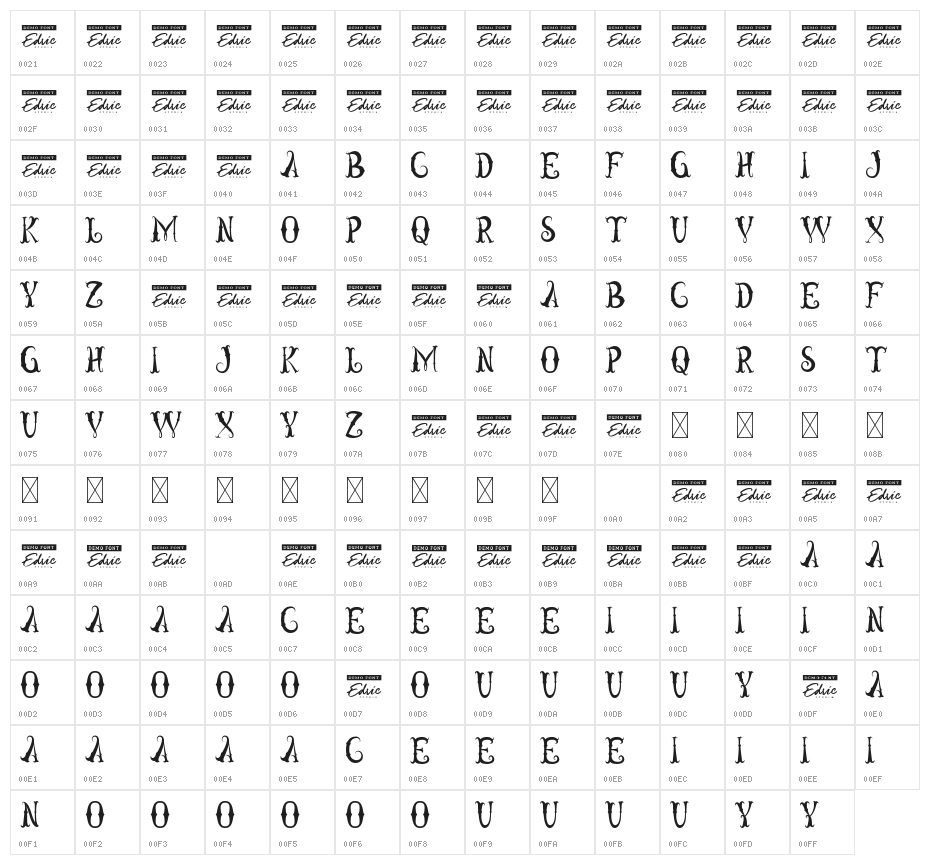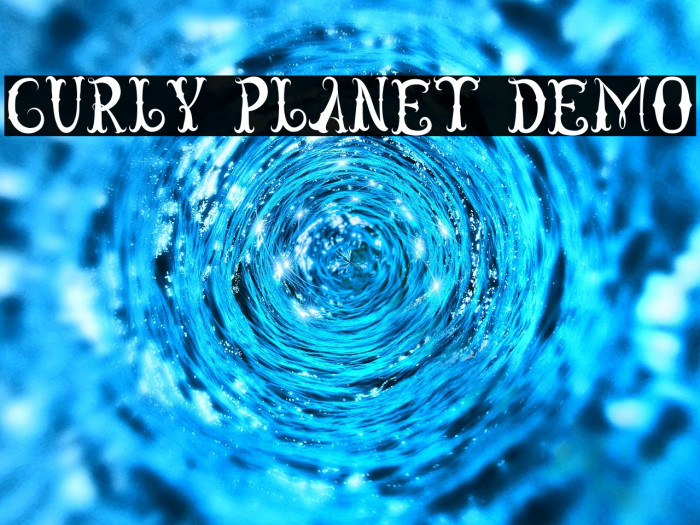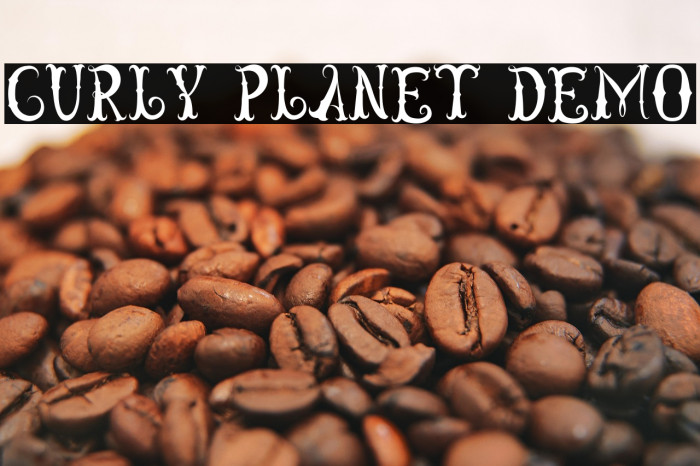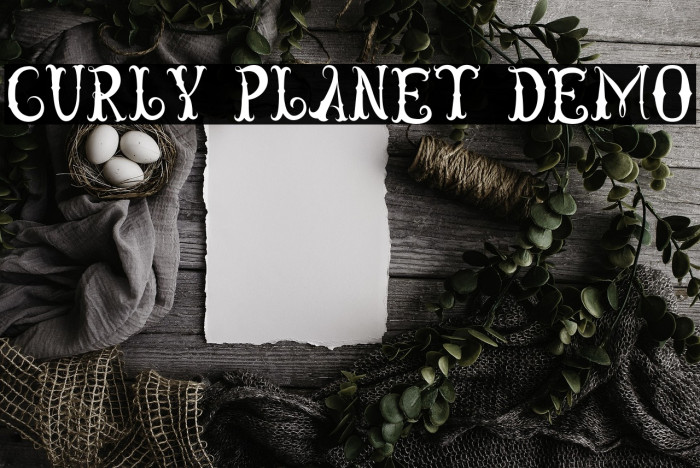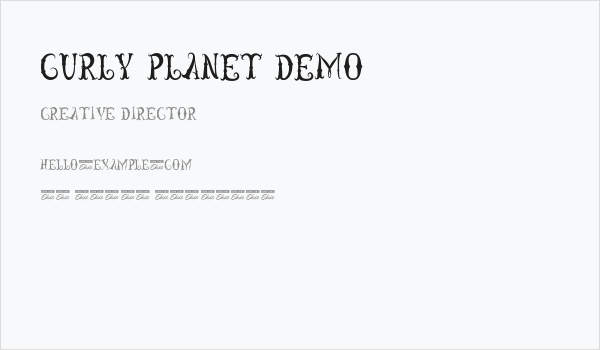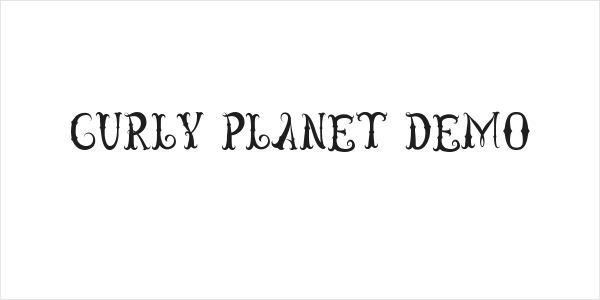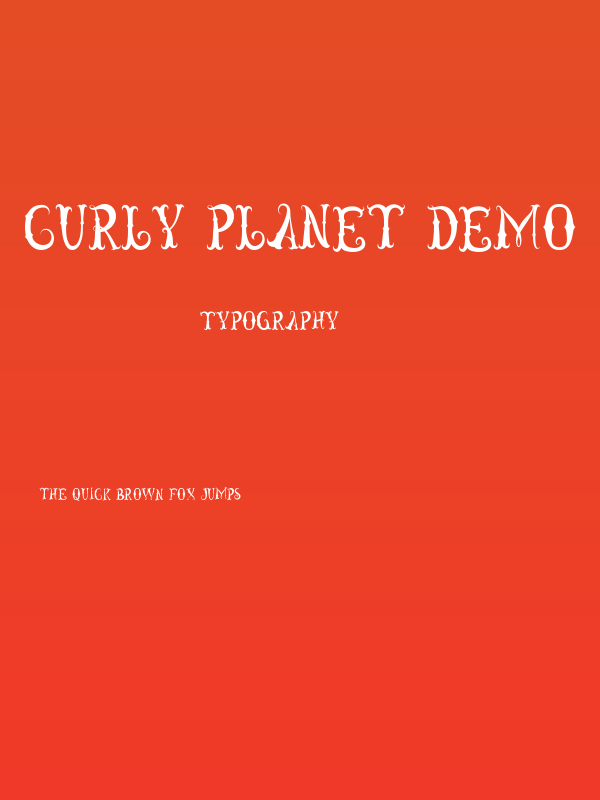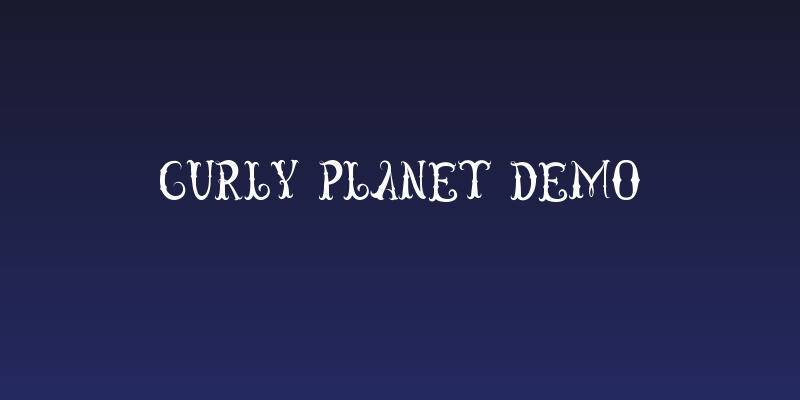
Curly Planet Demo Font
Curly Planet Demo Description
This font features a whimsical and playful design with curly and decorative elements. The uppercase letters are bold and have unique flourishes that give them a lively and artistic appearance. The lowercase letters maintain the same playful style, with consistent curves and loops that add to the font's charm. The numbers and special characters are designed to match the overall aesthetic, making them suitable for creative and fun projects. The font's style is reminiscent of hand-drawn or calligraphic designs, making it ideal for projects that require a touch of elegance and creativity.